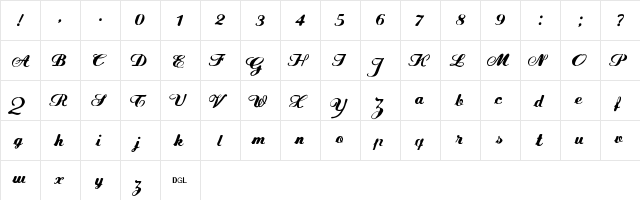
FLW Script Regular
Design Context for FLW Script Typeface
FLW Script flows with the natural rhythm of handwritten lettering, making it ideal for designs that call for warmth and personal expression.
Font Pairing: Combine FLW Script with a simple geometric sans for maximum contrast — the tension between flowing curves and clean structure is a classic typographic pairing.
Pro Tip: Pair FLW Script with a clean sans-serif for supporting text. The contrast between fluid script and geometric structure creates an elegant typographic hierarchy.